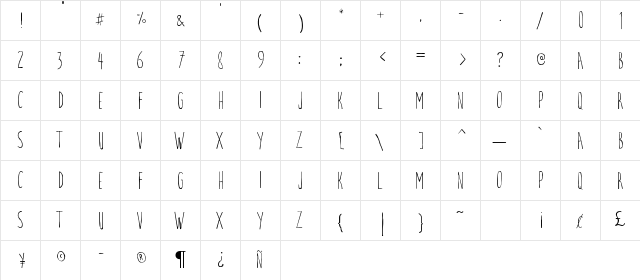
Cartoon 2 Movies Regular
| Foundry | Galdino Otten |
Design Context for Cartoon 2 Movies Typeface
Cartoon 2 Movies trades formality for fun, with bouncy, characterful letterforms that bring warmth and energy to any project.
Font Pairing: Pairs well with a rounded or humanist sans for body copy, maintaining the friendly tone without relying on Cartoon 2 Movies to carry extended reading.
Pro Tip: Avoid using Cartoon 2 Movies for long passages of text — it works best for headlines, labels, and short calls to action.